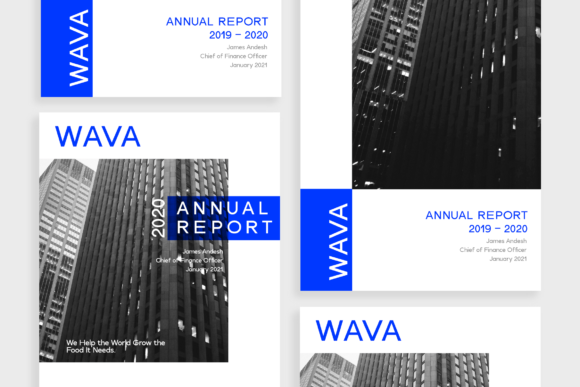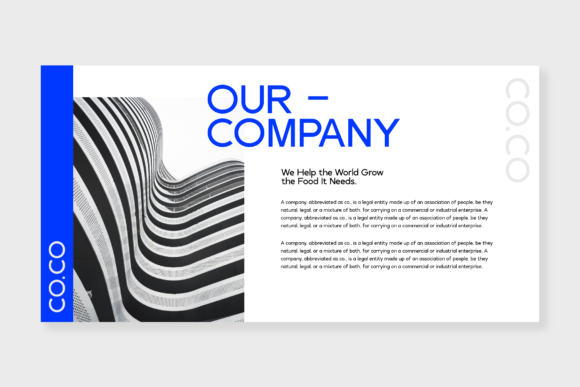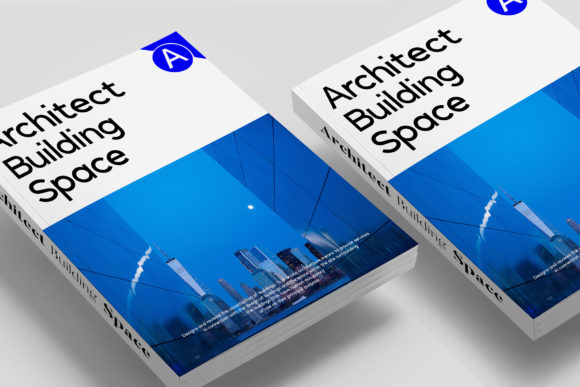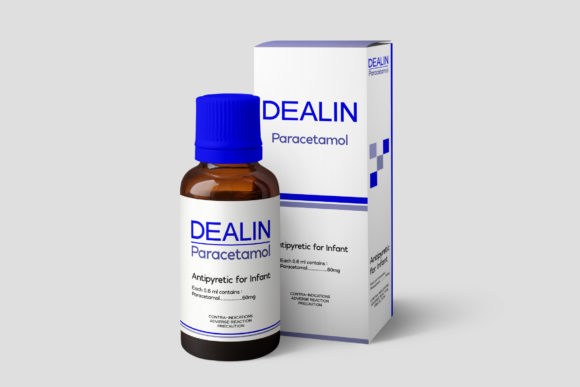
Introduction to Mostica Font
Mostica is a distinct, elegant sans serif that blends traditional influences into a contemporary aesthetic.
Its well balanced Latin details contain distinctive contrasts Use Mostica to achieve an exquisite, yet subtle look and maximum versatility.
Key Features of Mostica Font